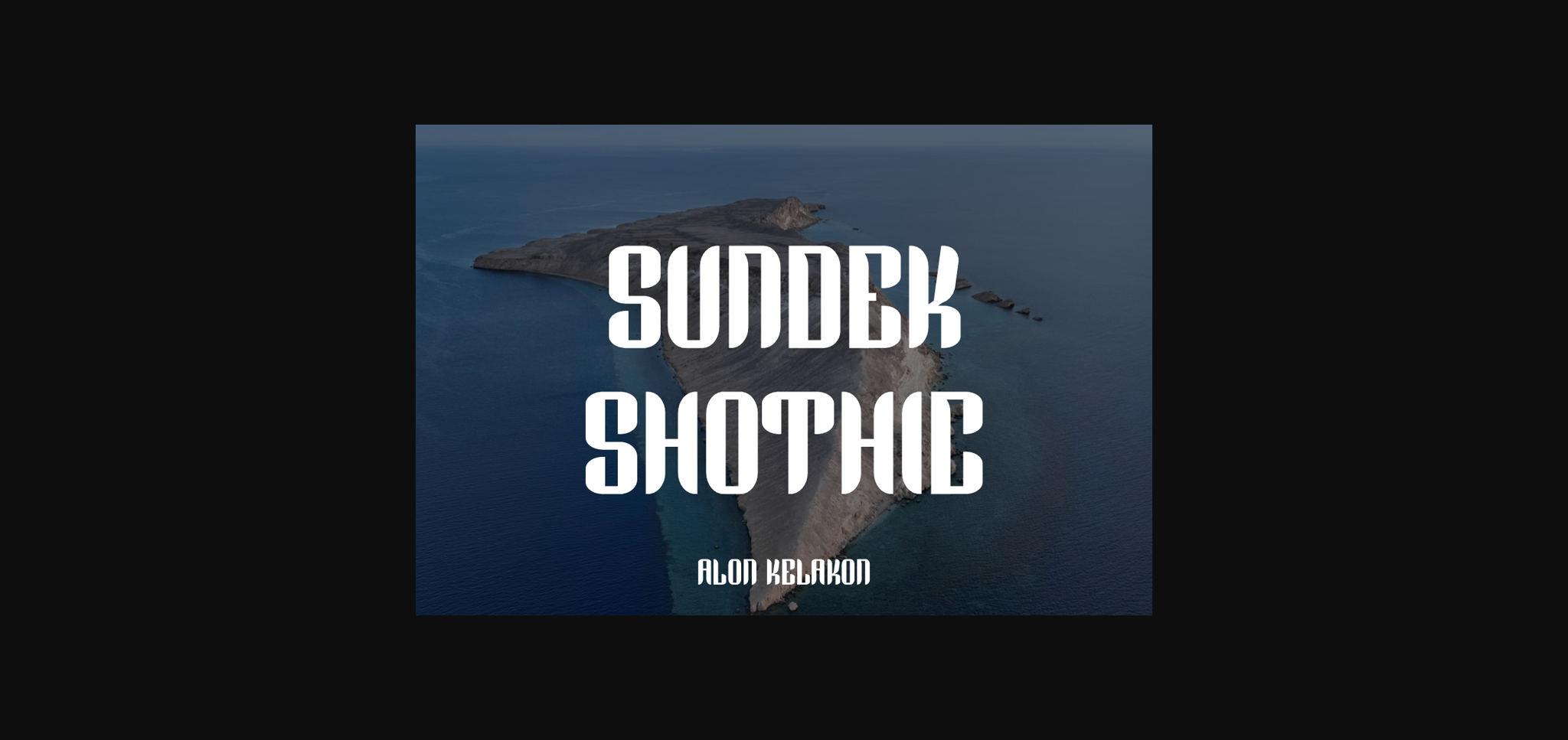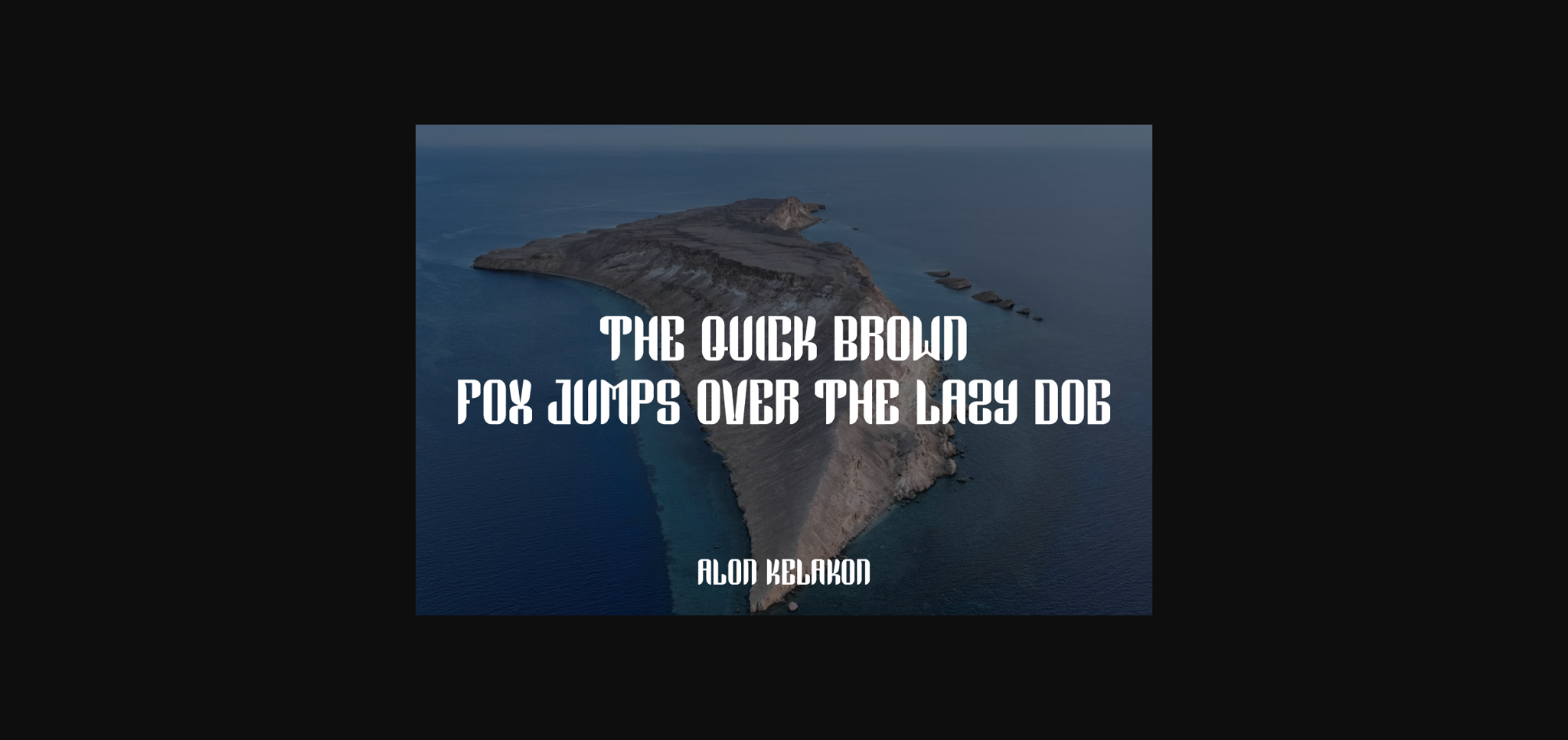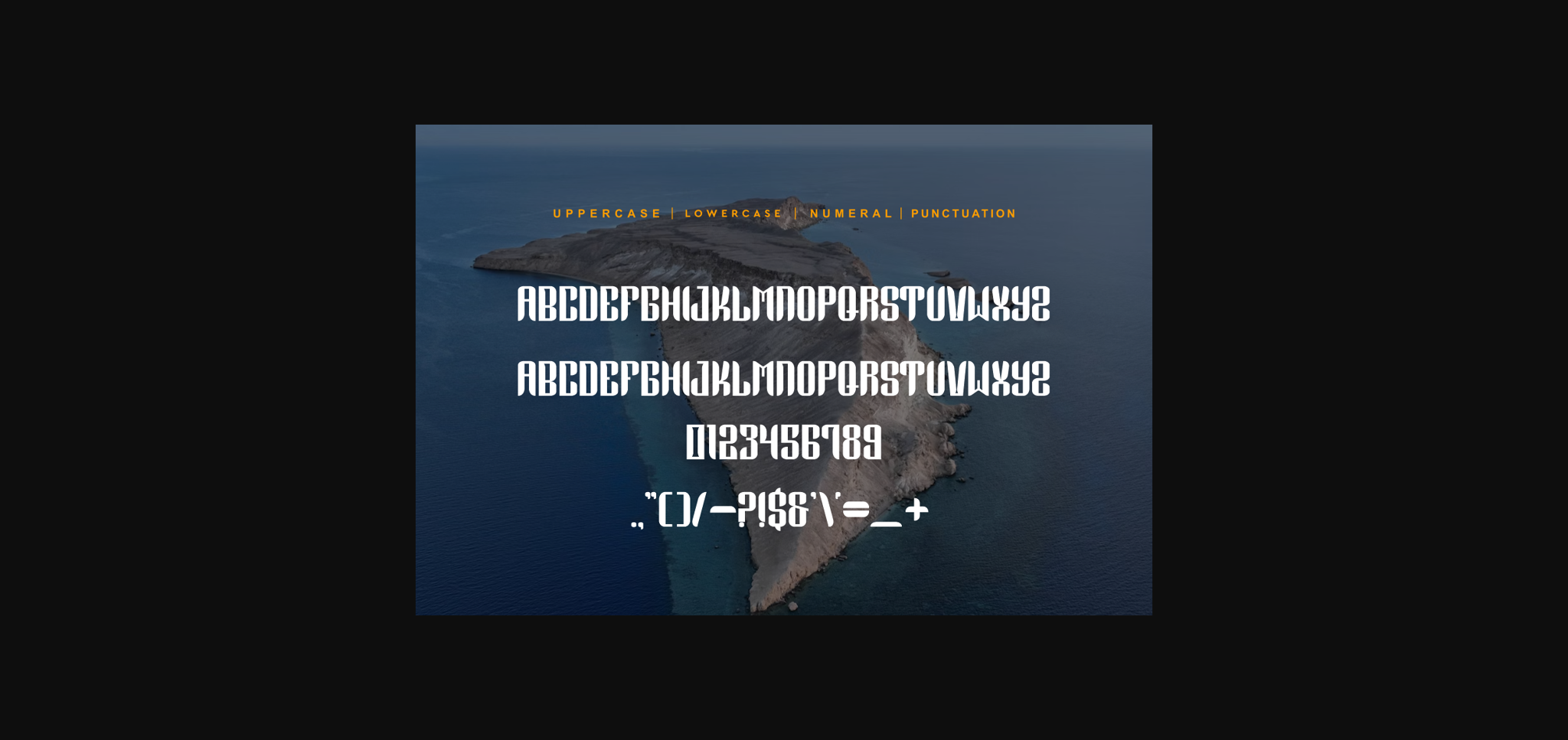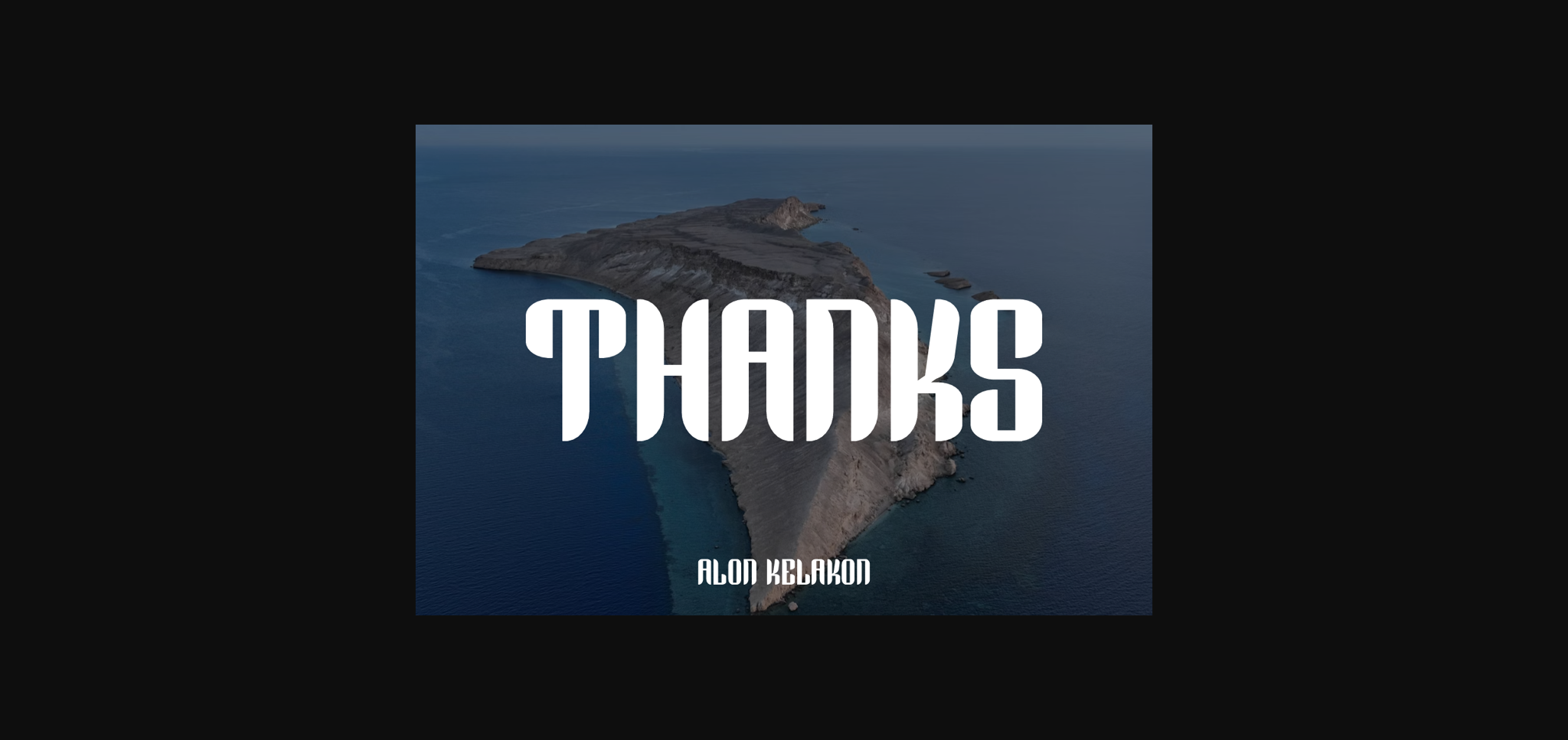
Sundek Shothic Font
About Sundek Shothic Font
Immerse yourself in the distinctive style of Sundek Shothic Font. Designed to catch the eye with its unique contours and curves, this font is a phenomenal choice for a multitude of projects. Whether you’re creating enticing gig posters, movie titles that capture the spirit of your story, album covers that resonate with listeners, or unforgettable logos, Sundek Shothic Font beautifully conveys the essence of your design. Available in OTF, TTF formats, it is designed to amplify your creative prowess, bringing an extra layer of charm and personality to every design it graces. Sundek Shothic Font, where uniqueness meets versatility.